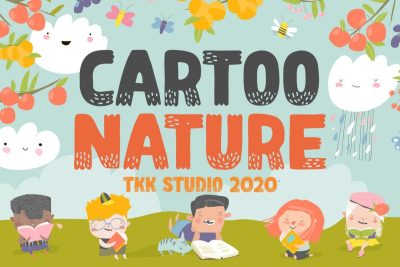
Cute Font Cartoo Nature is a playful, nature-inspired typeface designed to capture the wonder of childhood. With bold, rounded letters and cartoon-like shapes, it brings a sense of fun and innocence to any project. This fontโs style combines clean lines with whimsical curves, creating a design that feels both modern and timeless. Each character has a unique, lively feel, making the font seem as if it could jump off the page.
The letters in Cute Font Cartoo Nature are easy to read and full of charm, perfect for headlines or titles where you want to grab attention. The hand-drawn look adds a personal touch, connecting with viewers, especially younger ones, in an inviting way. Its thick strokes help the font stand out, while nature-inspired details give it an extra layer of creativity.
What sets Cute Font Cartoo Nature apart is its subtle nods to the animal kingdom and natural elements like leaves and trees. This font is ideal for projects that seek to inspire wonder or spark curiosity. Whether itโs a childrenโs book cover, an educational poster, or an environmental project, this font is adds a magical touch that draws people in.
Cute Font Cartoo Nature Ideal for
This font is is perfect for teachers, childrenโs book authors, illustrators, graphic designers, and marketers targeting young audiences. Teachers can use it to make worksheets, presentations, or classroom decorations more engaging. Its playful style captures kids’ attention, making learning materials enjoyable and memorable. Itโs a great choice for early educators who want their materials to feel friendly and inviting.
Childrenโs book authors and illustrators can use this font is to bring extra personality to their work. The fontโs unique design enhances storytelling, making characters and settings feel alive. Itโs ideal for titles, chapter headings, or promotional materials, especially for stories set in nature or featuring animals. The fontโs design reflects themes of exploration and adventure, perfect for young readers.
Graphic designers can use this font is for branding aimed at kids. It works well for toy packaging, kidsโ clothing, or educational products, as it radiates fun and excitement. The nature-inspired look also suits eco-friendly brands or products promoting outdoor play. Its friendly style helps brands connect with families and children on an emotional level.
Content creators focused on family-friendly themes can also benefit from Cute Font Cartoo Nature. Itโs great for YouTube thumbnails, social media posts, and other digital platforms. This fontโs readability and charm make it versatile across different media, from websites to apps.
Parents who enjoy DIY projects, like making birthday invitations or party decorations, will find Cute Font Cartoo Nature delightful. It adds a personal, whimsical touch to their creations, making each project feel special. Its warm, friendly design makes every celebration or memory more vibrant, bringing smiles to both kids and adults.